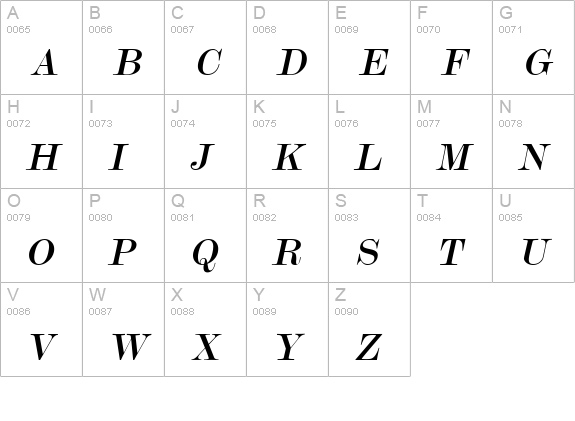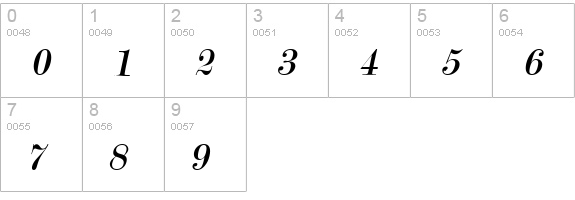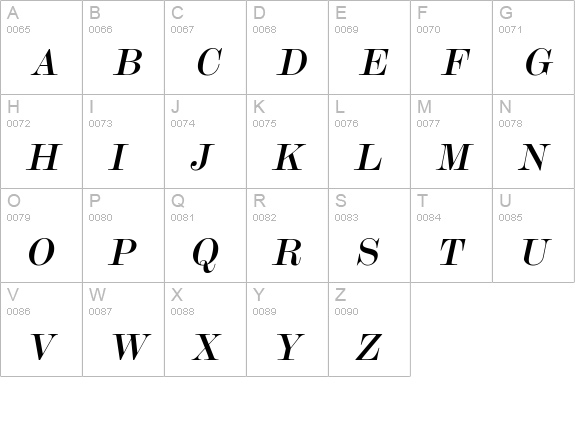
Update 20 Italic Font Details
Update 20 Italic is a distinctive, italic variant in the Update typeface family \xE2\x80\x94 well suited to design and typography projects.
Update 20 Italic font is a stunning addition to any designer's font library. With sleek and elegant curves, this font adds a touch of sophistication to any project. Whether you're creating a logo, designing a website, or crafting a stylish invitation, Update 20 Italic font is sure to make a lasting impression. What makes Update 20 Italic font even more appealing is that it is available for free download at FontsMarket.com. Yes, you read that right - this incredible font is freely available to all designers looking to enhance their creations without breaking the bank. With its bold and expressive style, Update 20 Italic font effortlessly captures attention and conveys a sense of professionalism. Its versatility allows it to be used in a wide range of contexts, from corporate presentations to creative advertisements. The clean and refined lines of Update 20 Italic font create a sense of elegance and refinement, making it ideal for projects that require a touch of sophistication. Its italicized form adds a unique and artistic flair, making it perfect for conveying a sense of style and creativity. Whether you're a professional designer or a passionate hobbyist, Update 20 Italic font is a must-have in your collection. Its timeless appeal and beautiful design make it suitable for various design projects, from print materials to digital media. So don't miss out on the opportunity to elevate your designs with Update 20 Italic font. Visit FontsMarket.com today and download this incredible font for free. Upgrade your creations and impress your audience with the timeless beauty of Update 20 Italic font.